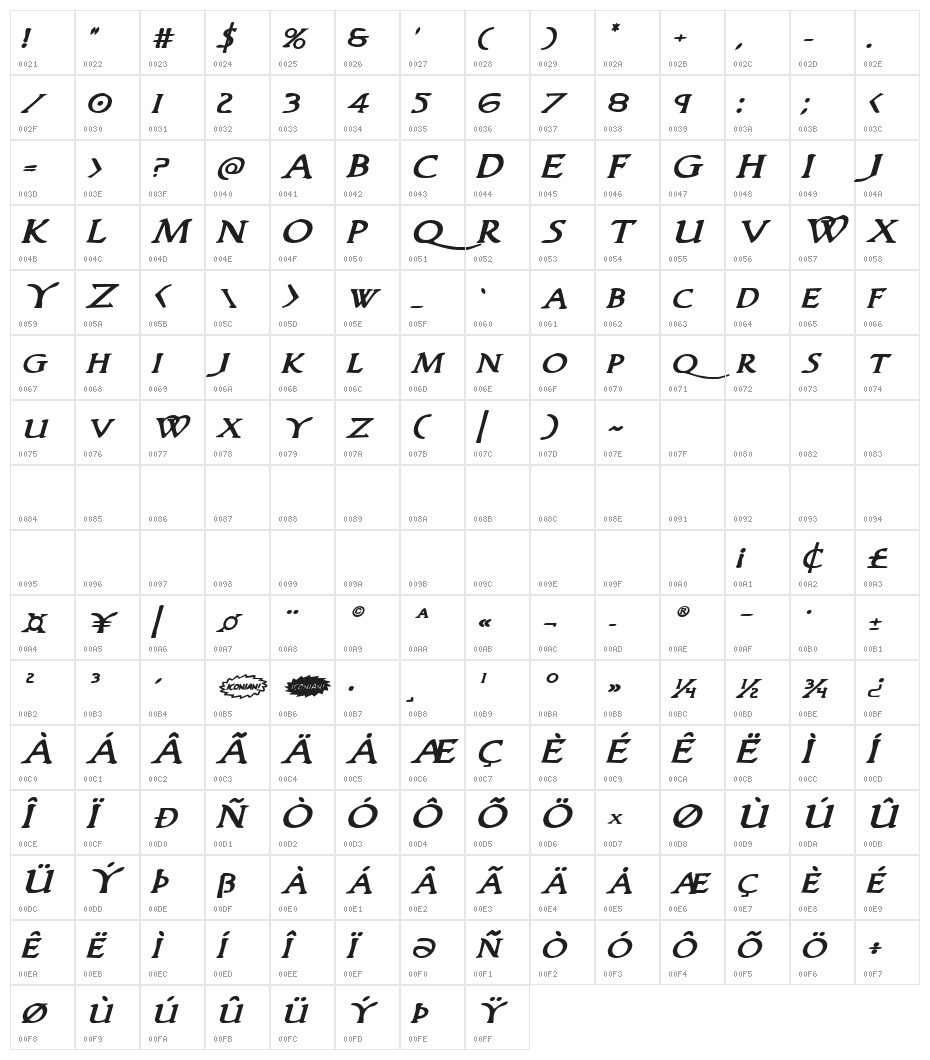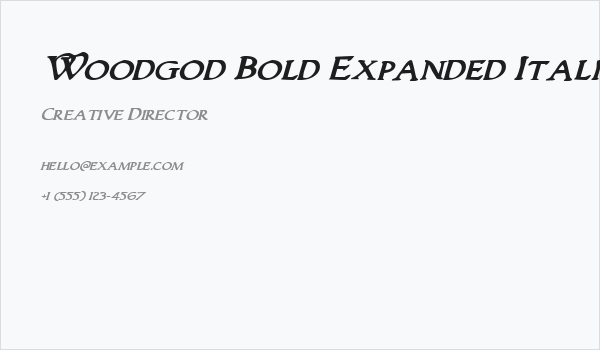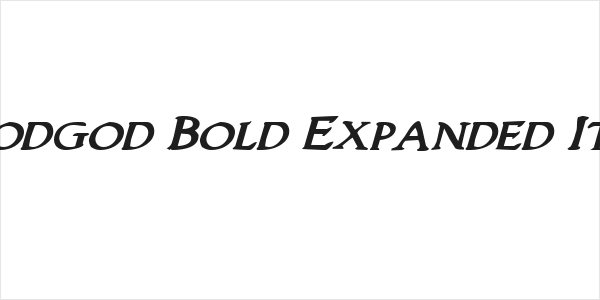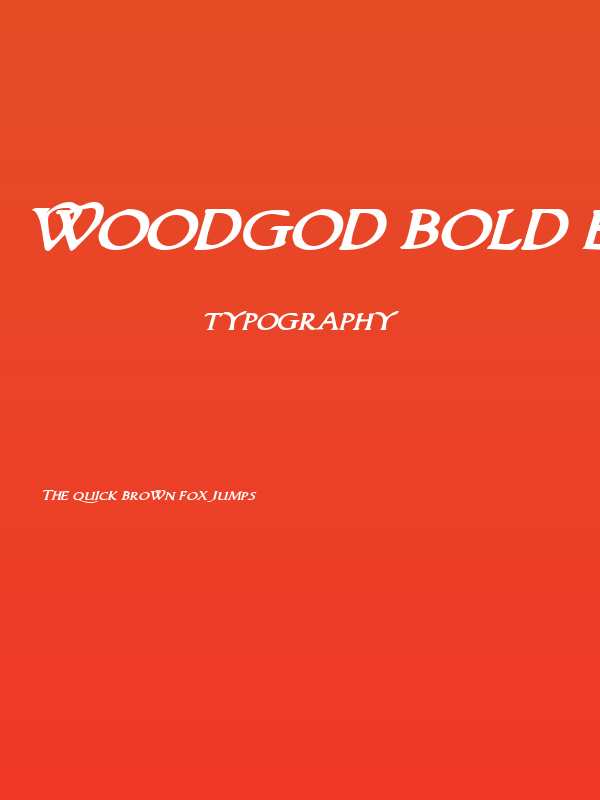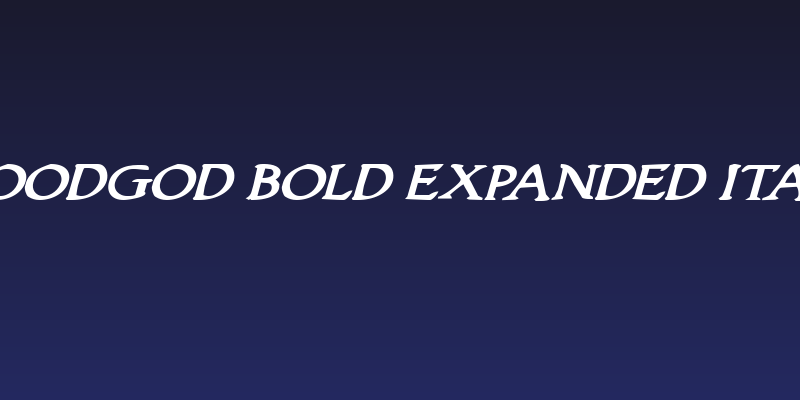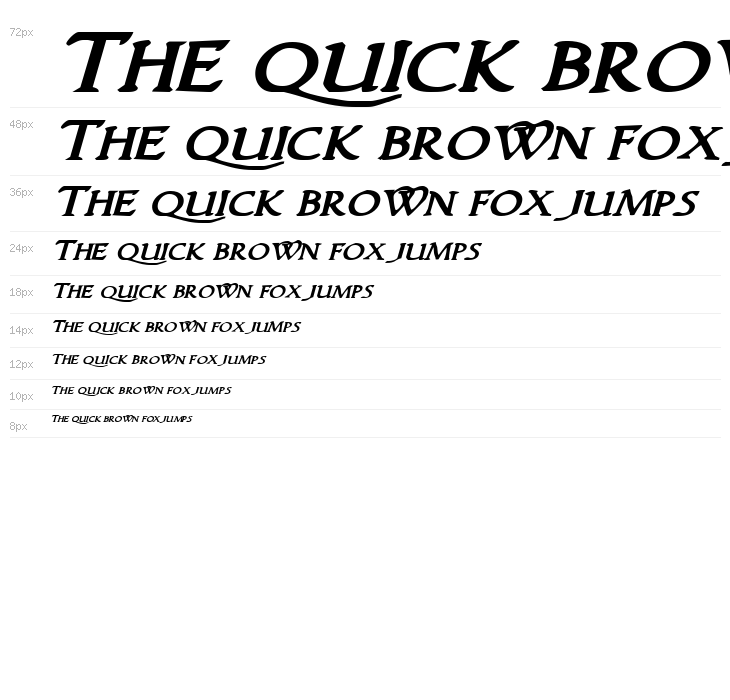
Woodgod Bold Expanded Italic Font
Woodgod Bold Expanded Italic Description
This font exhibits a bold and expanded style with a distinct italic slant, giving it a dynamic and energetic appearance. The characters are well-defined with a strong presence, making them suitable for impactful designs. The uppercase letters have a slight flourish, adding a touch of elegance and sophistication. The numerals are consistent with the overall bold theme, ensuring readability while maintaining the font's unique style. Special characters are designed to complement the alphabet, providing a cohesive look across all text elements. The font's expanded width allows for a commanding presence, ideal for making statements in design projects.